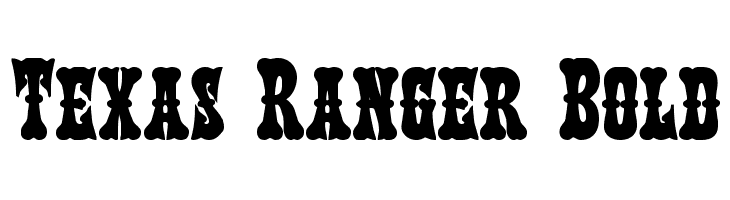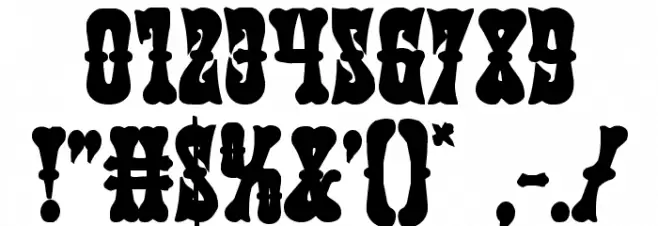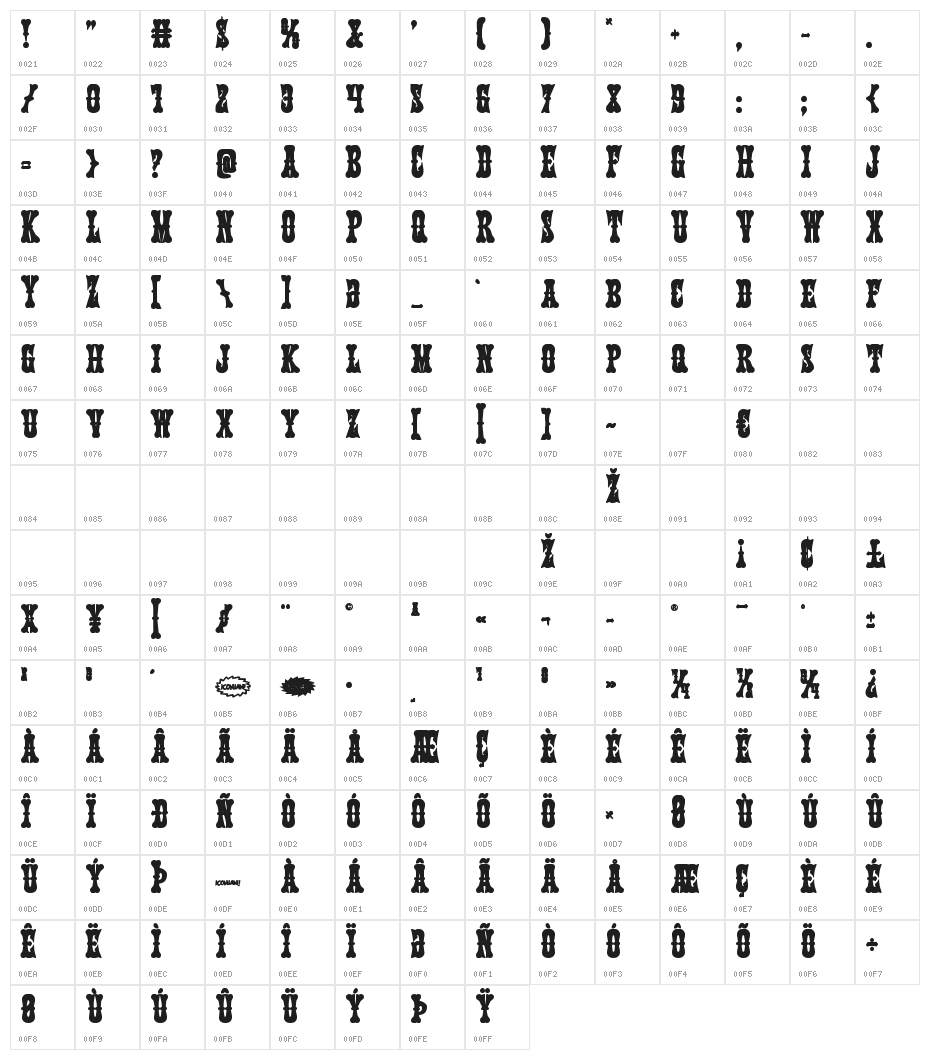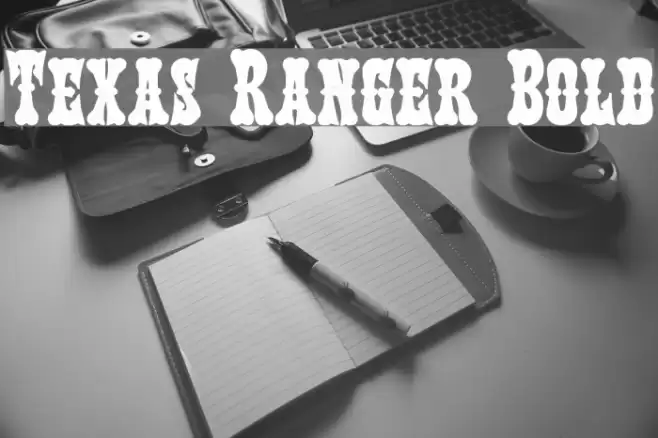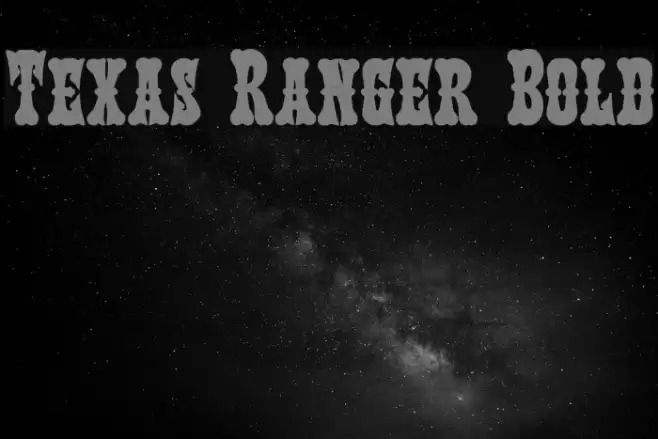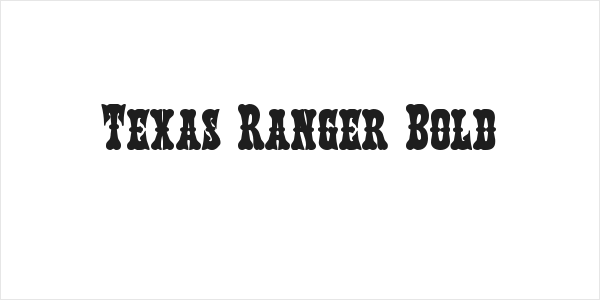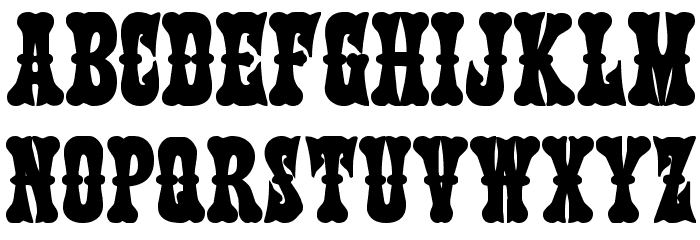
Texas Ranger Bold Font
Texas Ranger Bold Description
This bold and striking font features a distinctive Western-inspired design, characterized by its thick, blocky letterforms and decorative serifs. The uppercase and lowercase letters maintain a consistent style, with exaggerated curves and sharp angles that evoke a sense of ruggedness and adventure. The numbers and special characters are equally bold, ensuring a cohesive look across all text elements. This font's unique style makes it ideal for projects requiring a strong visual impact.
| Proposed Projects | Perfect for Western-themed posters, event flyers, branding for rustic or vintage products, and any design needing a bold, adventurous touch. |